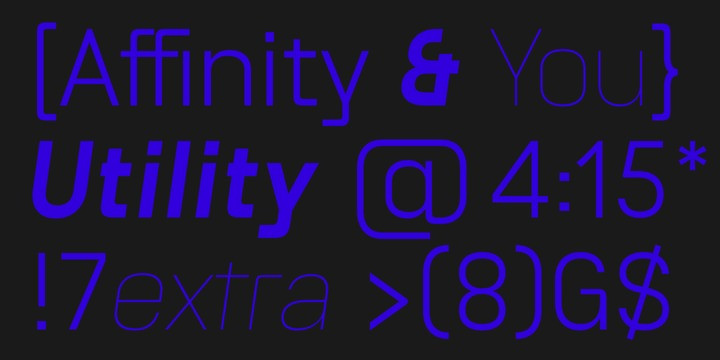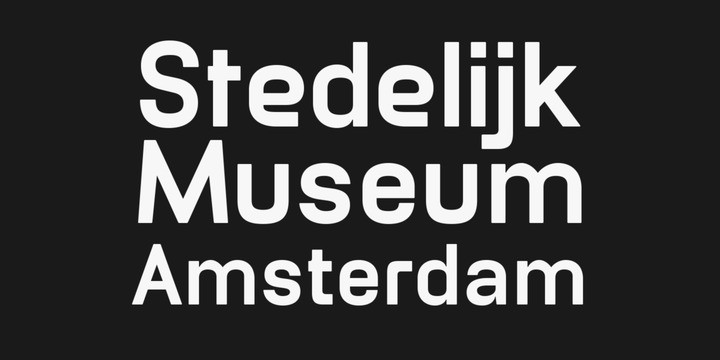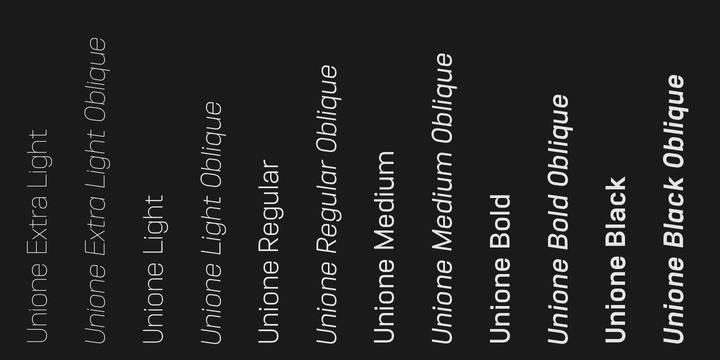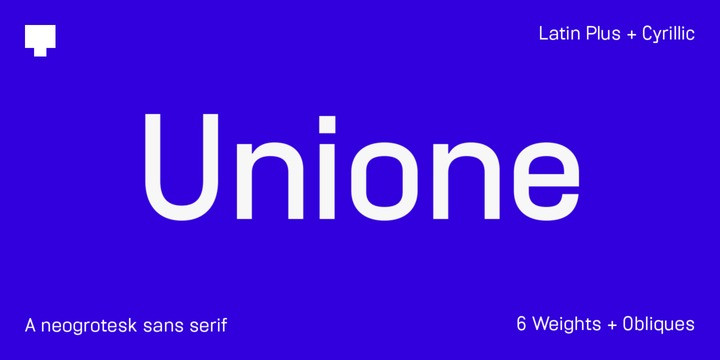
Unione Sans Font Family
Befonts is very pleased to introduce a new modern sans-serif font family. It’s a universal sans serif family – clean and timeless. It’s suited to cover many needs from brand identities to editorial design, advertising, logos and beyond. Unione Font is designed and shared by TOMO Fonts. It’s a clean and modern sans-serif type family with a geometric touch. Available in six weights (sharp and rounded) and with their corresponding obliques. A family of 28 members, with more than 1000 glyphs per font! The family has a wide range of language support, including Latin Plus & Cyrillic. Check out the interesting stylistic alternates Unione has for you.